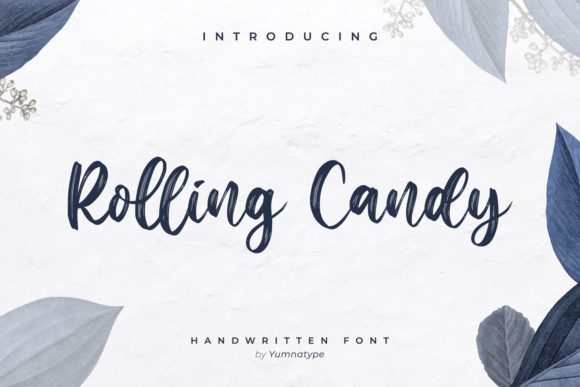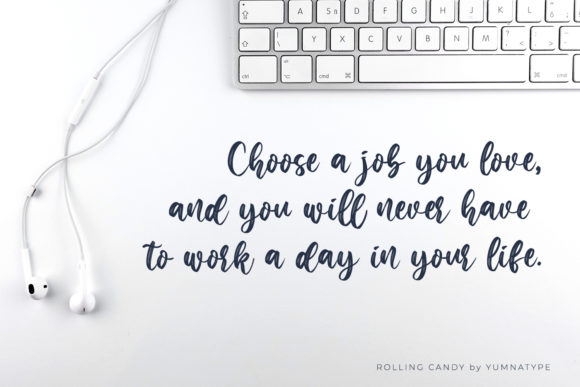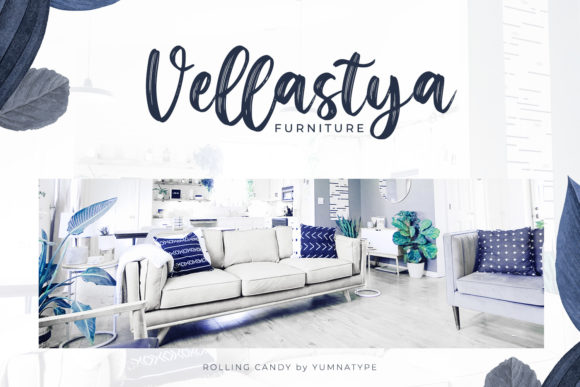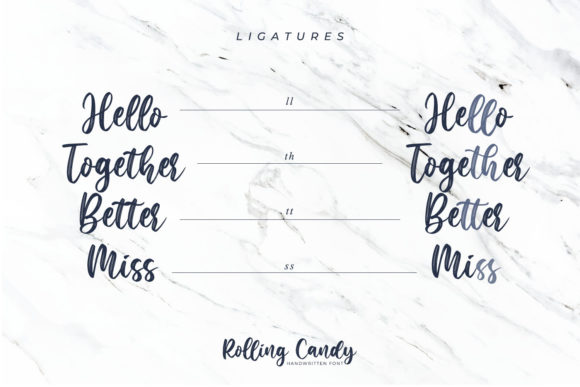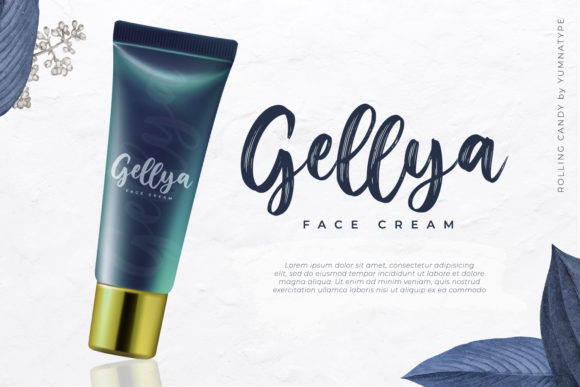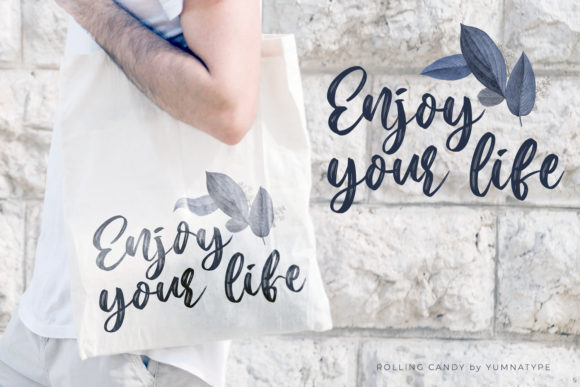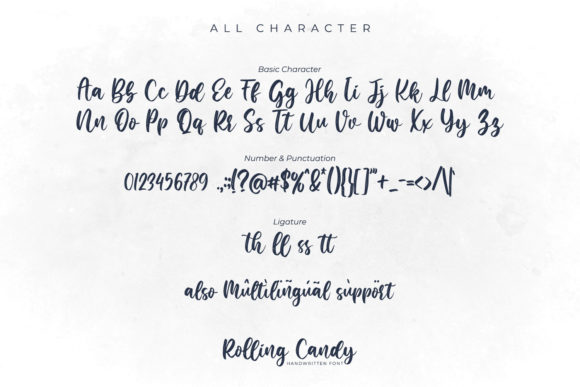
About Rolling Candy Font
Rolling Candy is an exquisite handwritten font, masterfully designed to become a true favorite. It maintains its classy calligraphic influences while feeling contemporary and fresh. Fall in love with it and bring your projects to the highest levels!